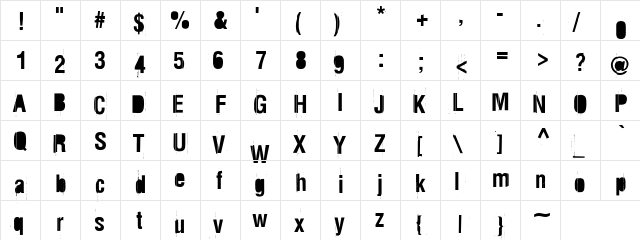
Rez Regular
Design Context for Rez Typeface
Rez is a composed and adaptable typeface that performs quietly and consistently across a wide range of design contexts.
Pro Tip: Pair Rez with a font of contrasting weight or personality to build a more expressive typographic hierarchy.